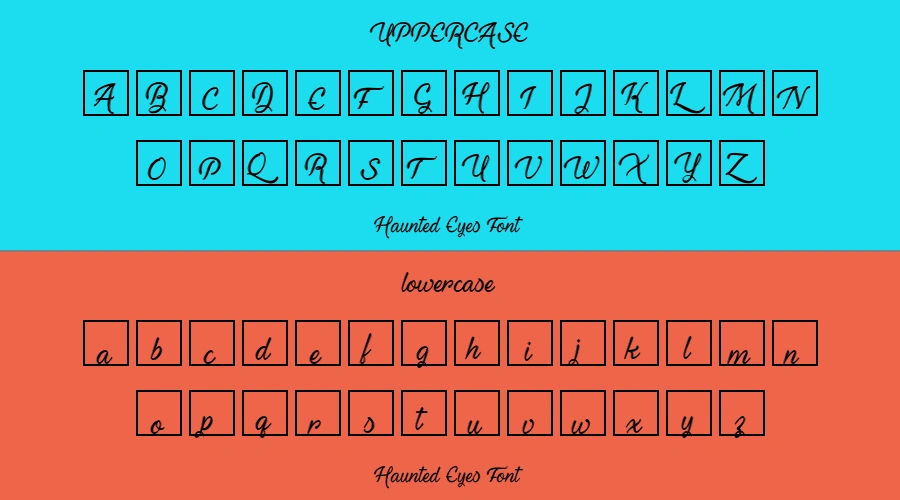
About Haunted Eyes Font
Haunted Eyes Font embodies typographic excellence through its masterful combination of dramatic weight and consistency. Created for classic books, this typeface delivers exceptional expressiveness and technical merit across all applications. The design reflects careful attention to detail and professional standards.
Advanced capabilities include distinctive ink traps and versatile discretionary ligatures, giving designers creative control. When used in running text, Haunted Eyes Font exhibits remarkable reliability. The harmonious balance between stroke contrast and artistic value sets this typeface apart.
Haunted Eyes Font |